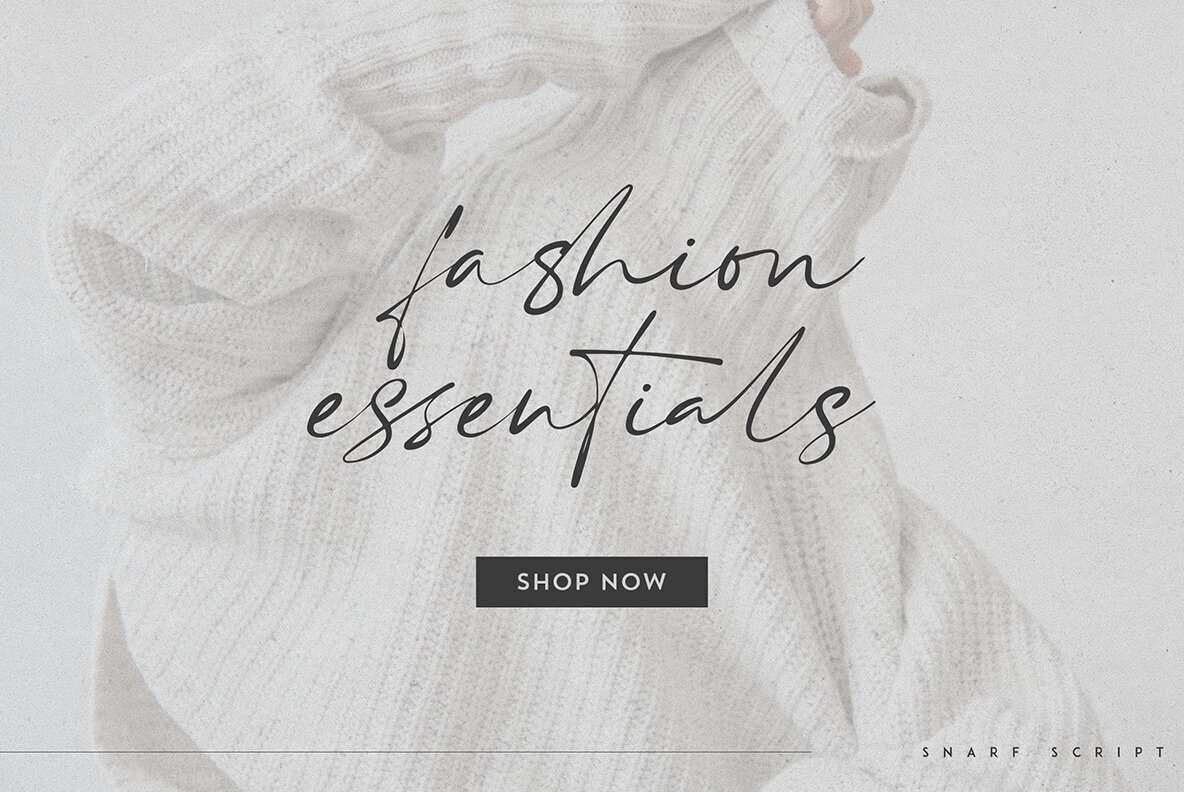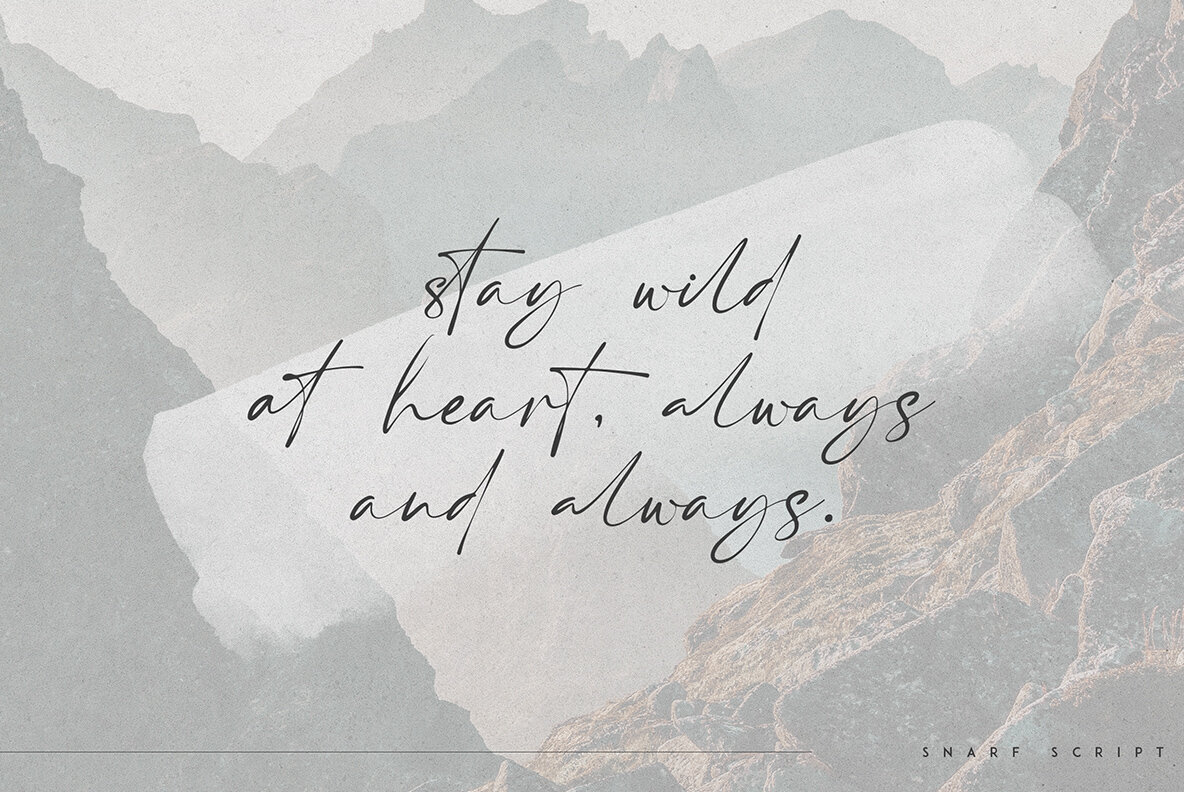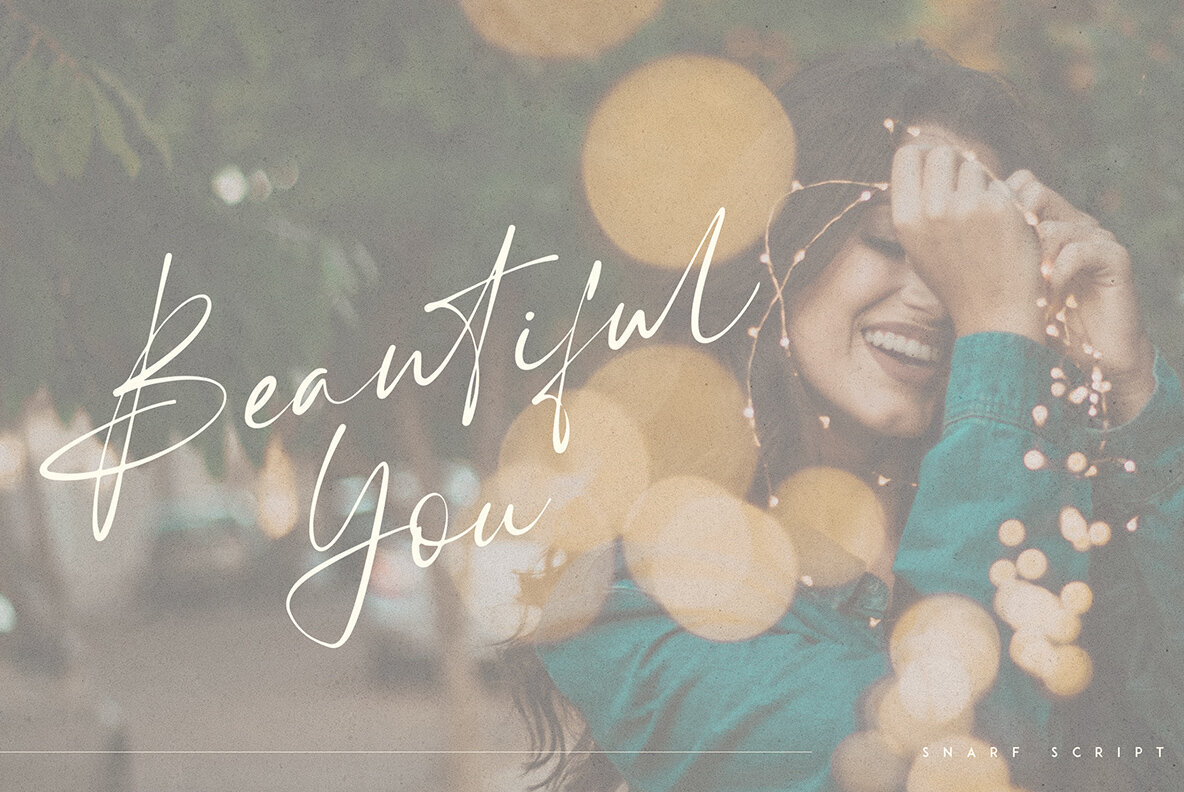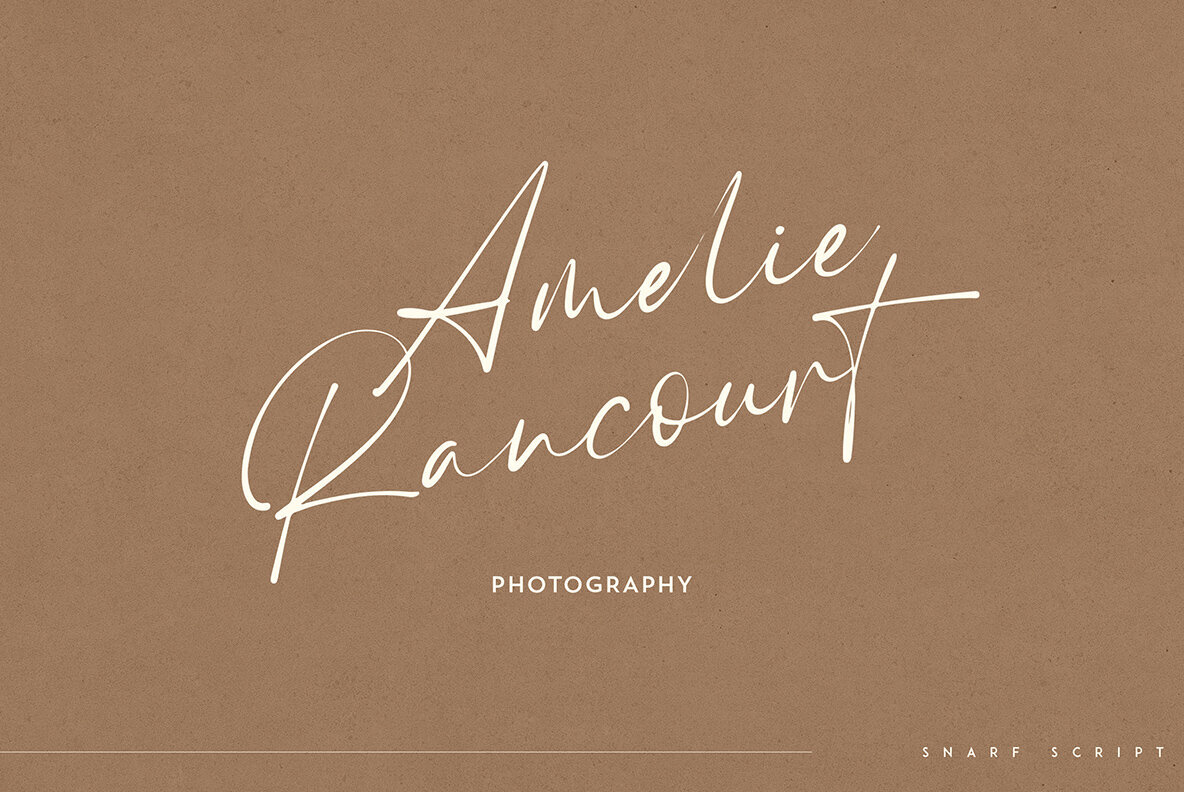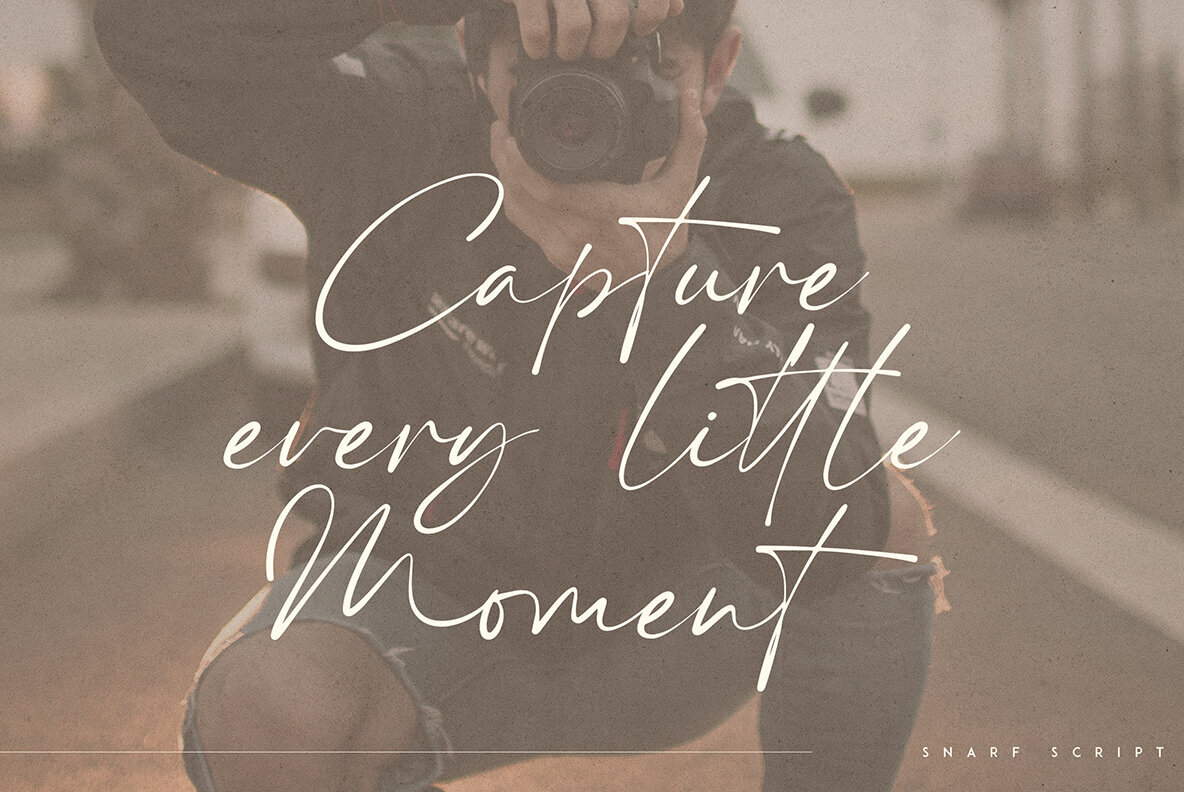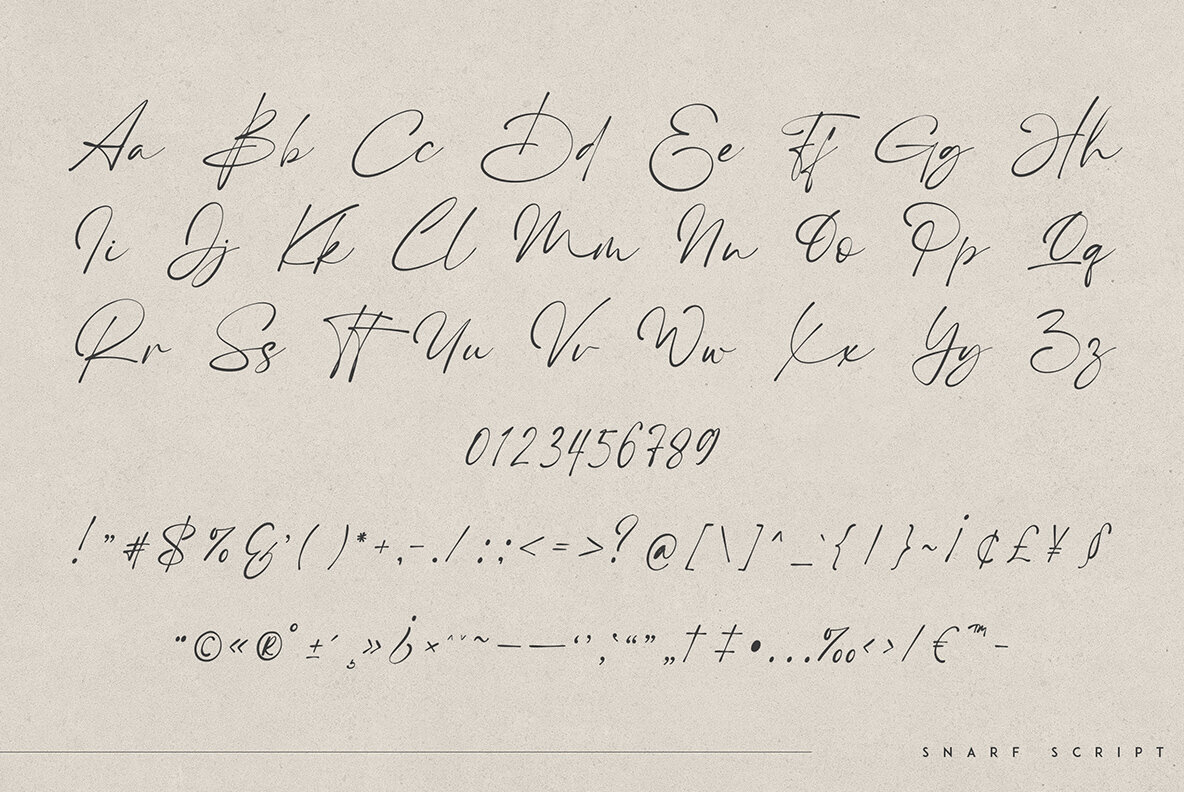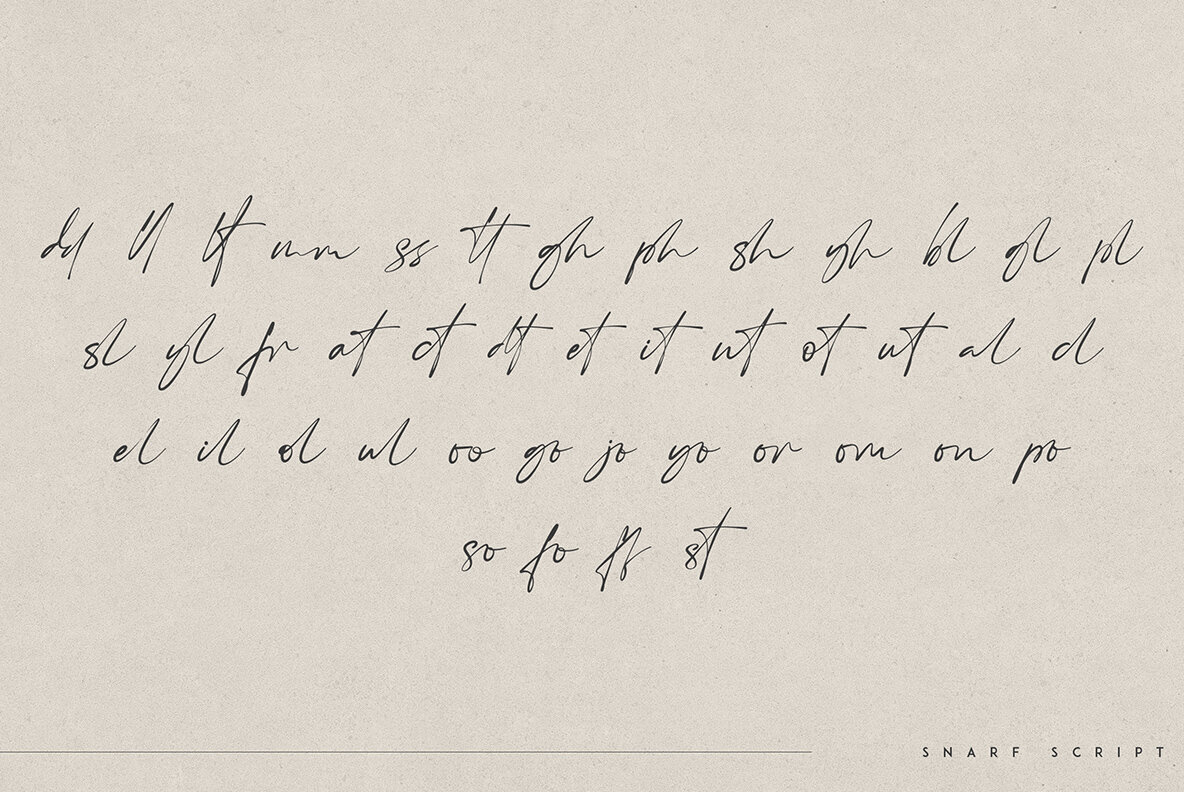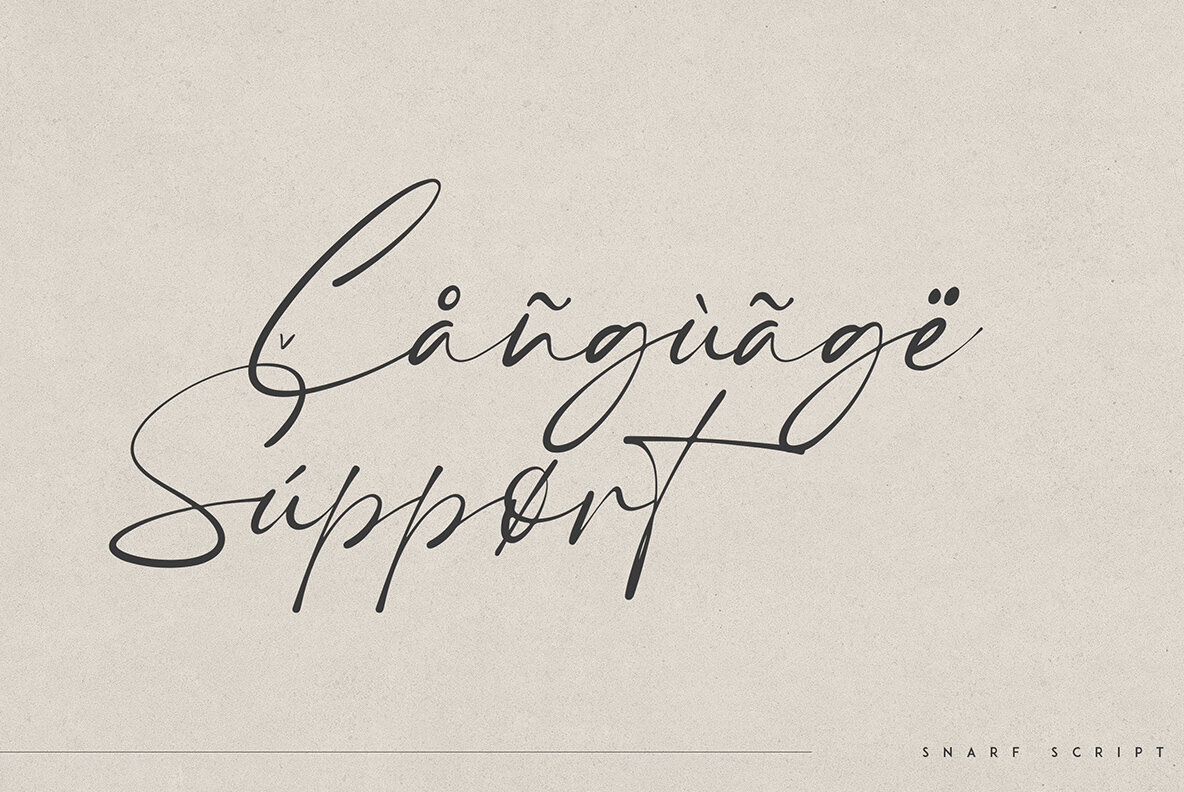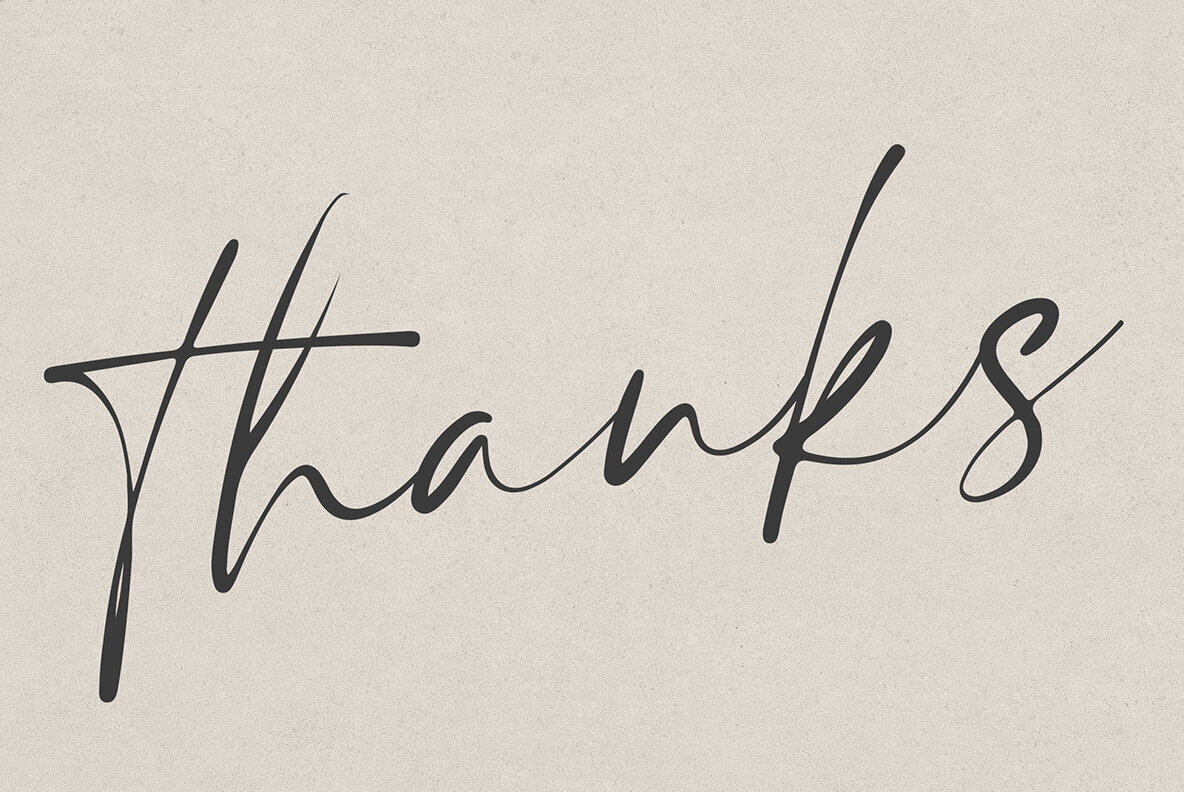
Snarf Font
Snarf Regular
Snarf embodies a relaxed elegance with its organic and casual script style, designed to enhance diverse design projects. Its versatility is evident in both large and small applications, lending stylish flair to various projects. With its ability to accommodate numerous languages, Snarf is ideal for creative endeavors, including branding, home décor, product packaging, and magazine headers. Whether utilized for a bold statement or a subtle overlay on imagery, this font offers a seamless experience. Features:Snarf: Organic Script with Multilingual Support